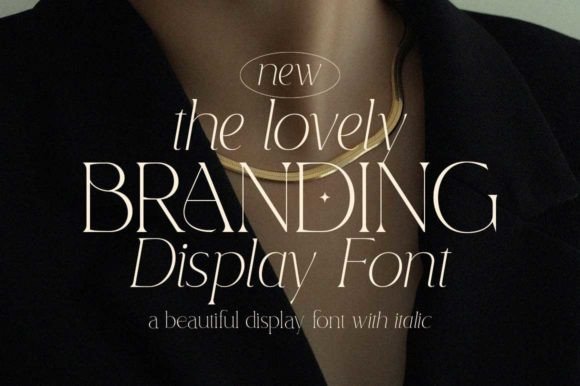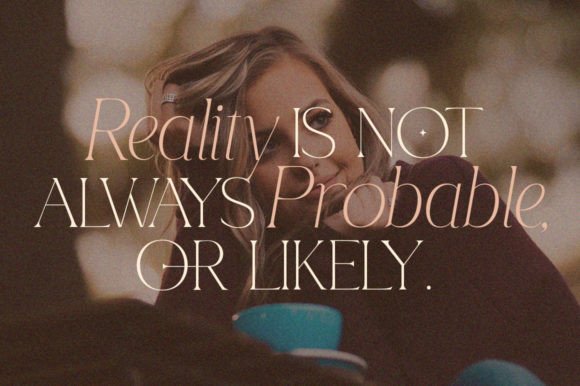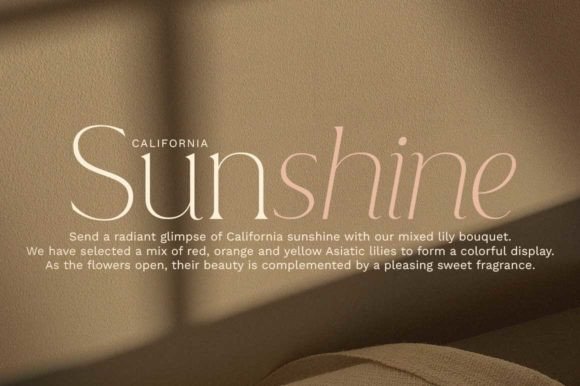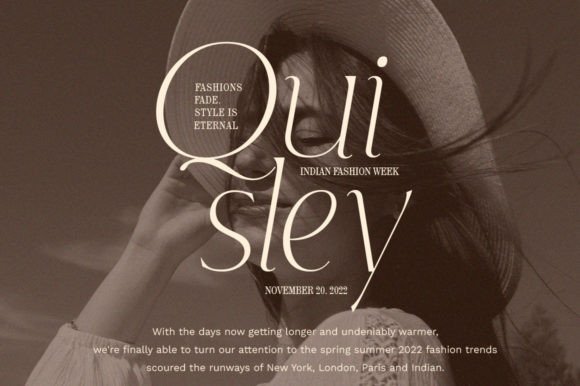
Lovely Branding Font
About the Lovely Branding Font
From logos to headlines, the Lovely Branding Font is the perfect choice for making a lasting impression. Lovely Branding is the newest serif combination font. Beautiful plain serif combined with italic serif is the main attraction of this font. Also Has modern serif characters in it. The elegant combination font is perfect for your next fancy design project. Keep in mind that the font is PUA encoded, meaning that you can access all delightful glyphs and swashes effortlessly.
Lovely Branding Font excels in headline treatments, logos, and short-form text applications such as packaging and social media graphics. Its elegant serifs lend themselves well to branding projects requiring a touch of sophistication and timelessness. However, the intricate details may become illegible in smaller sizes or extended body copy. Avoid using it for lengthy paragraphs or UI elements where readability is paramount.
The font’s core personality is sophisticated yet approachable. It possesses a modern elegance, making it suitable for brands aiming for a refined and stylish image, perhaps in the fashion, beauty, or luxury goods sectors.
Pairing Lovely Branding with a clean sans-serif like Montserrat or Open Sans for body text creates a strong visual hierarchy. For a more playful contrast, consider pairing it with a rounded sans-serif such as Lato or a slightly quirky script font like Great Vibes, but use the script sparingly as an accent.
Lovely Branding Font Usage Examples
Lovely Branding Font Example